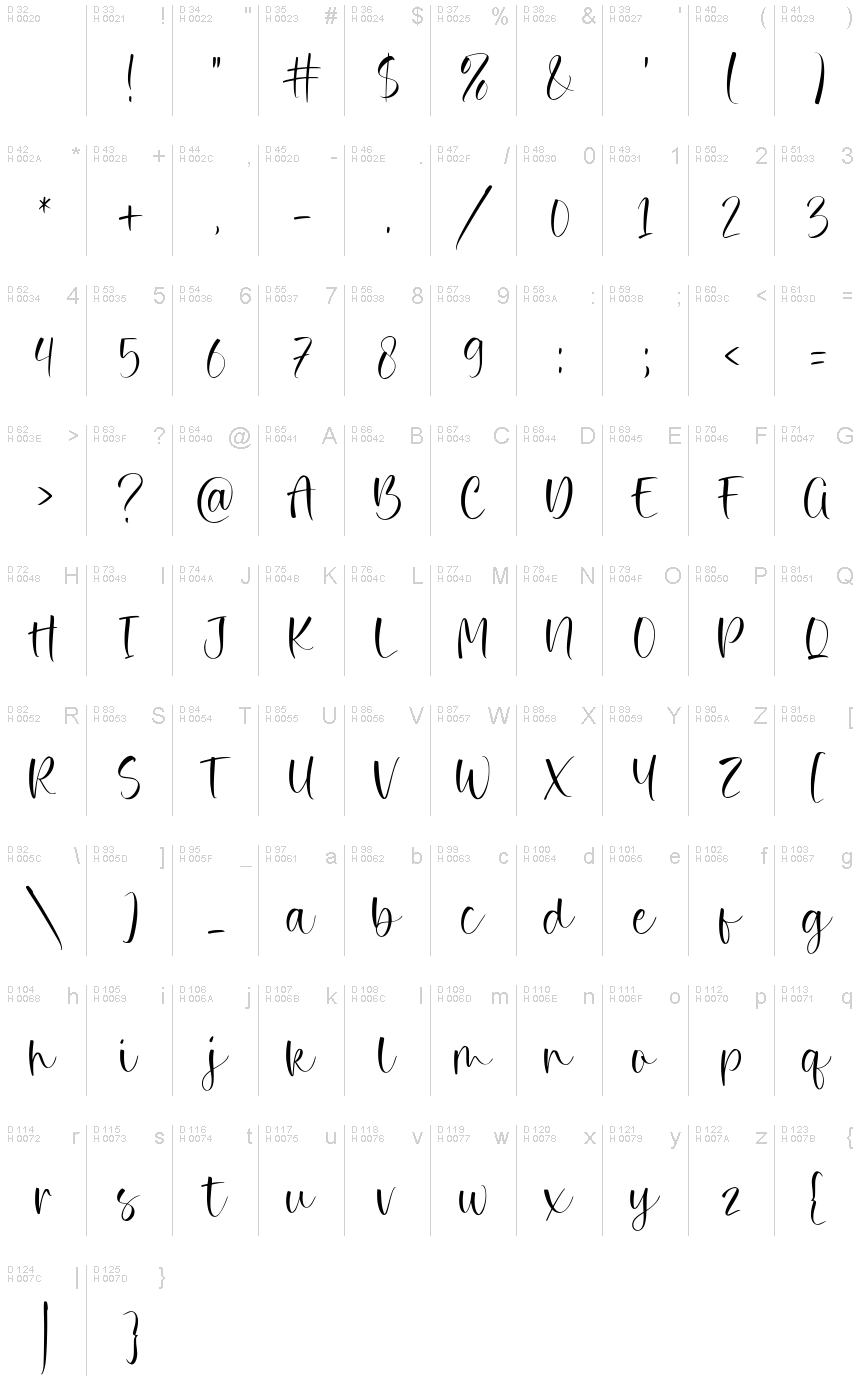
Sociable
Sociable font by Balpirick Studio offers a charming handwritten style that exudes warmth and creativity. Its flowing curves and elegant strokes create a sense of movement, making it perfect for personal and inviting designs. This free font is ideal for projects that require a touch of personality—such as wedding invitations, greeting cards, or social media graphics. Sociable's unique aesthetic allows it to stand out while remaining legible and approachable.